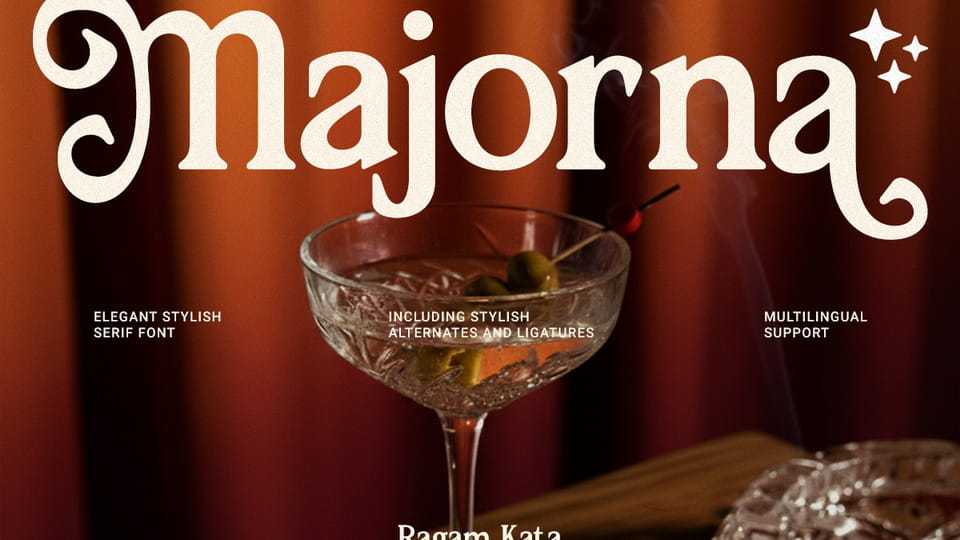
Download Majorna font, an elegant and stylish serif typeface that blends vintage charm with modern sophistication, featuring graceful curves, distinctive swashes, and refined ligatures.